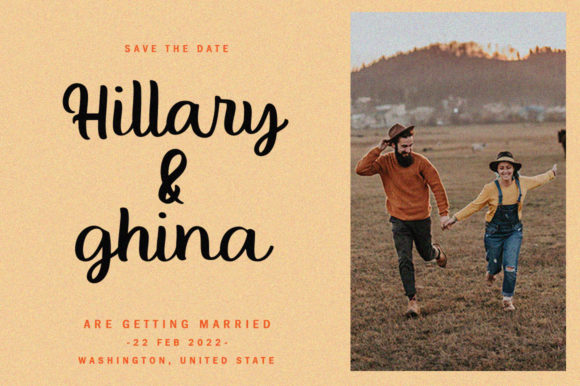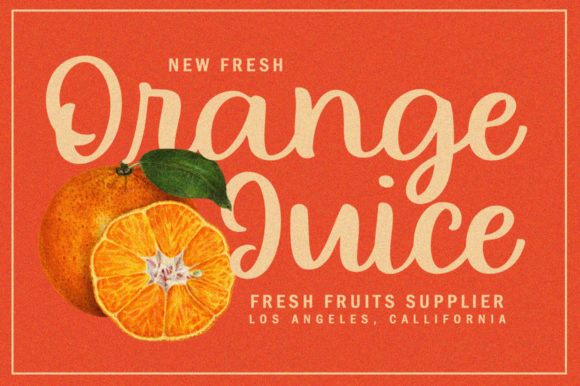
The Brayland Font
db-ku.com - Script & Handwritten -- The Brayland is a soft and sweet script font. It has a casual and elegant touch and it can be used for various purposes such as logos, wedding invitations, headings, t-shirts, letterheads, signage, labels, news, posters, badges and more.